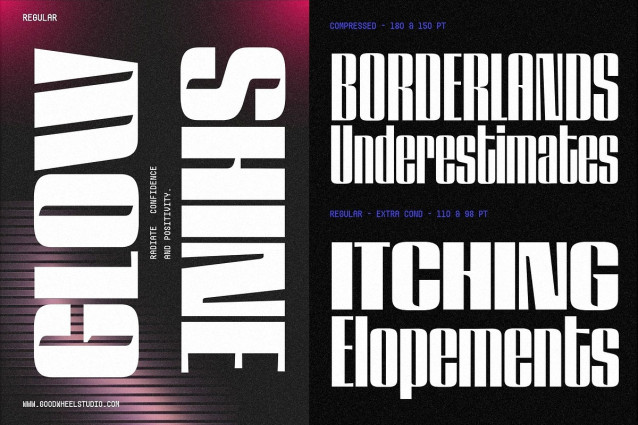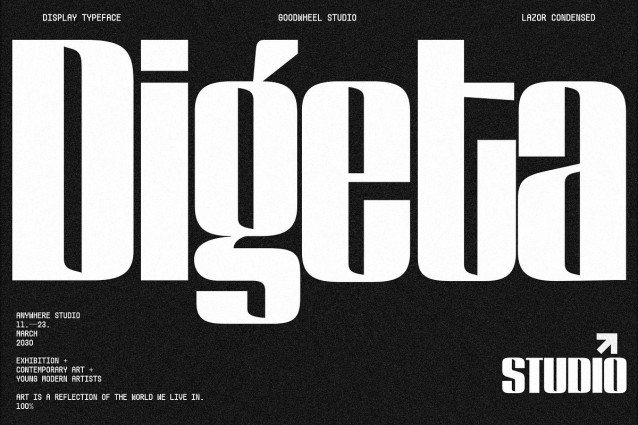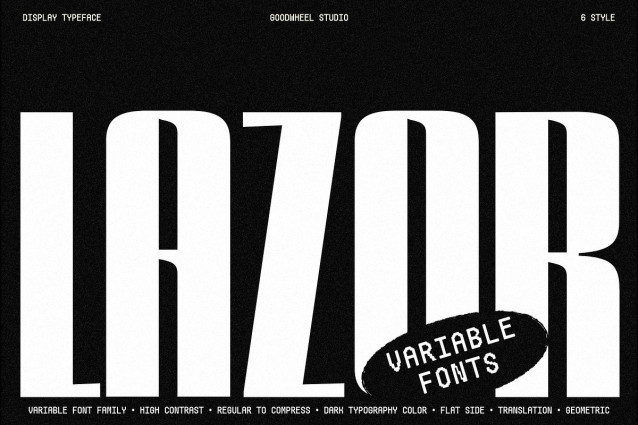
GW Lazor Font
GW Lazor Font is a high-contrast, geometric display typeface designed for maximum visual impact. Merging the precision of architectural lines with a modern, edgy aesthetic, it is the ultimate tool for designers who want their message to stand out with authority and style.